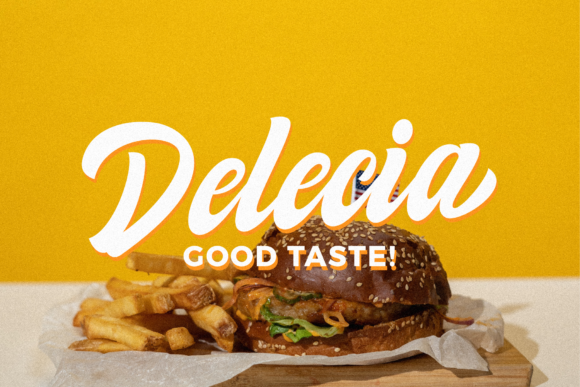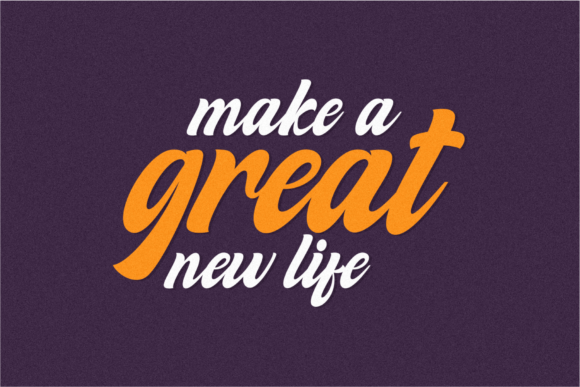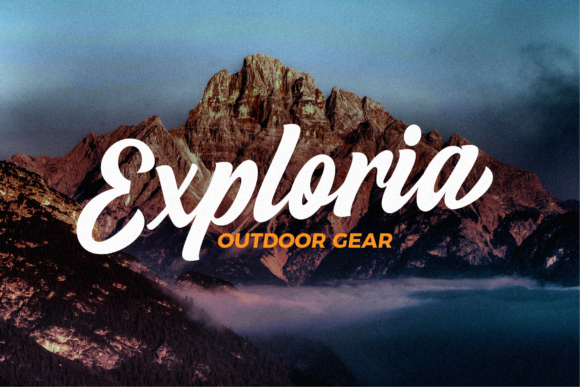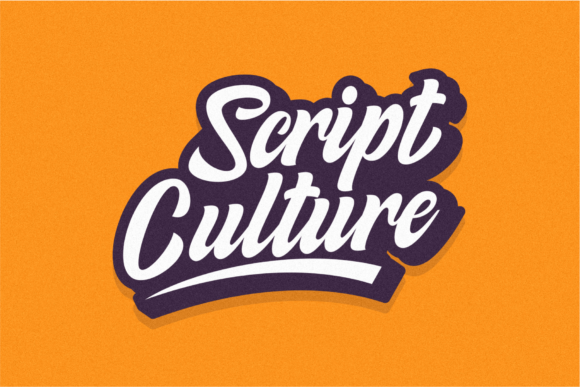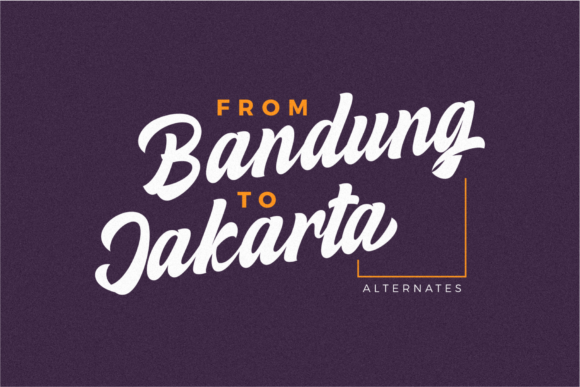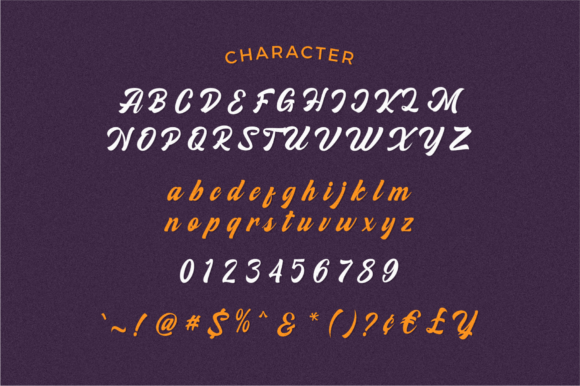
Introduction to Recelity Font
Recelity is an exquisite handwritten font, masterfully designed to become a true favorite.
Key Features of Recelity Font